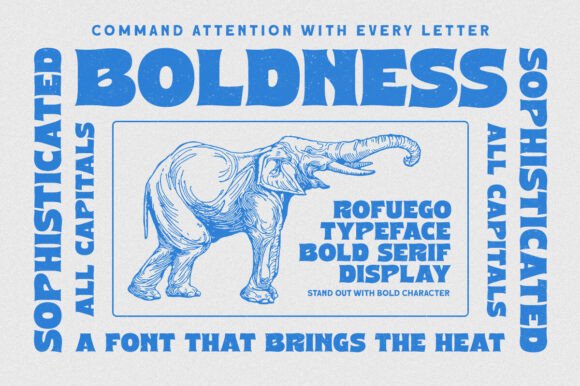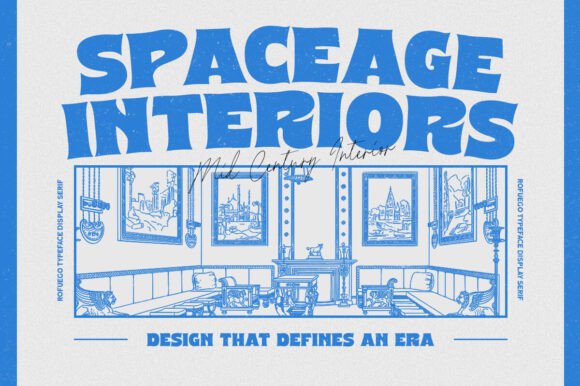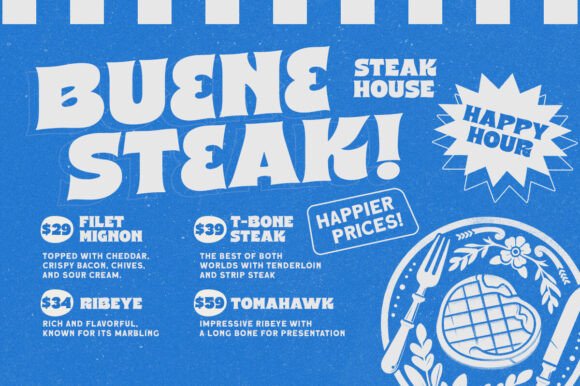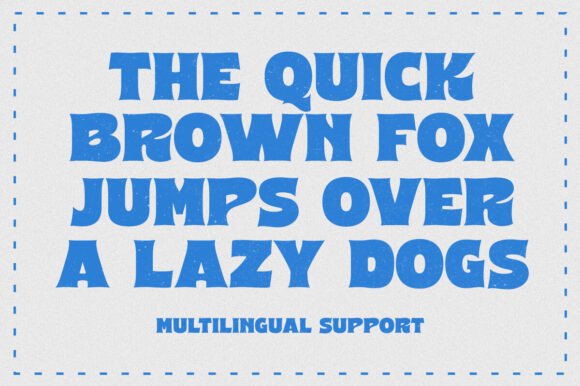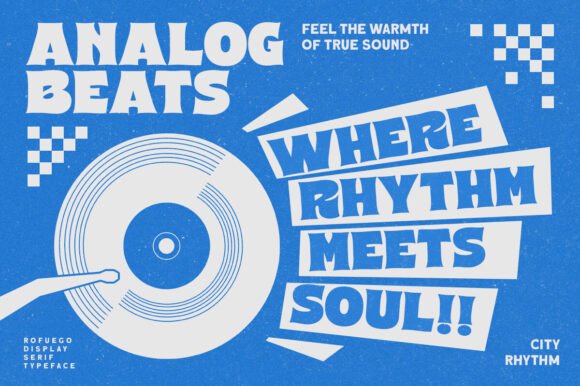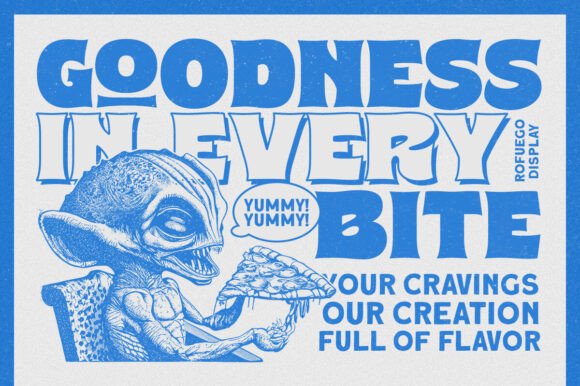
Introduction to Rofuego Font
Rofuego is a bold display typeface that unapologetically commands attention.
Rofuego is a bold display typeface that unapologetically commands attention. With a touch of nostalgia and a modern twist, itโs the perfect choice for iconic logos, headlines, and standout designs
Key Features of Rofuego Font